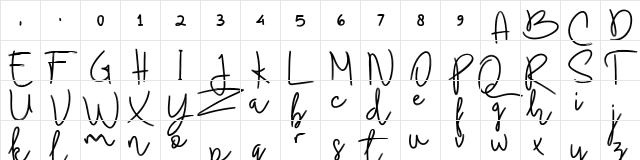
Budhayanti Script Regular
| Foundry | Suandana I Pande Made |
| Designer | Suandana I Pande Made |
Design Context for Budhayanti Script Typeface
Budhayanti Script brings a calligraphic fluidity to the page — its connecting strokes and expressive curves give it an unmistakably human quality.
Font Pairing: Combine Budhayanti Script with a simple geometric sans for maximum contrast — the tension between flowing curves and clean structure is a classic typographic pairing.
Pro Tip: Pair Budhayanti Script with a clean sans-serif for supporting text. The contrast between fluid script and geometric structure creates an elegant typographic hierarchy.